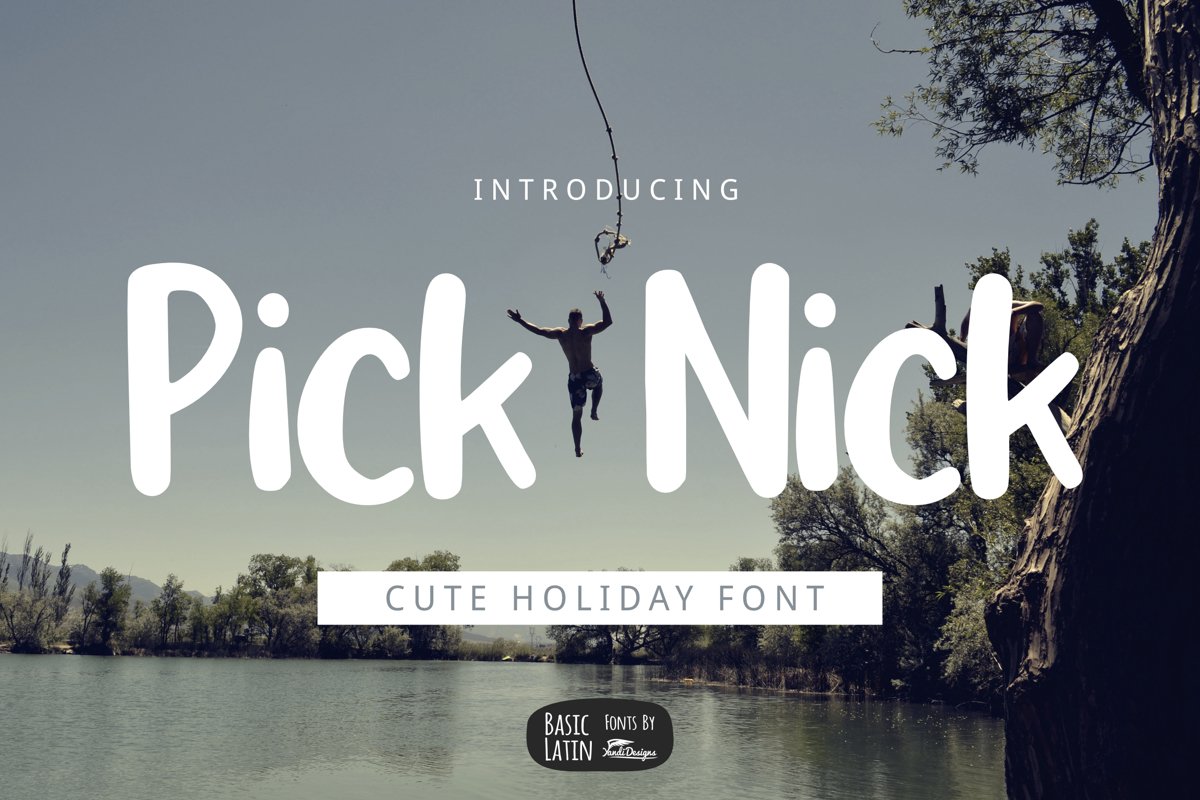
Pick Nick Holiday Font
Pick Nick Font
Pick Nick is lovely , cute, simple, playful, multipurpose handwritten font , suitable for many project children book, quotes, logo , heading , title etc. Summer and holiday font.